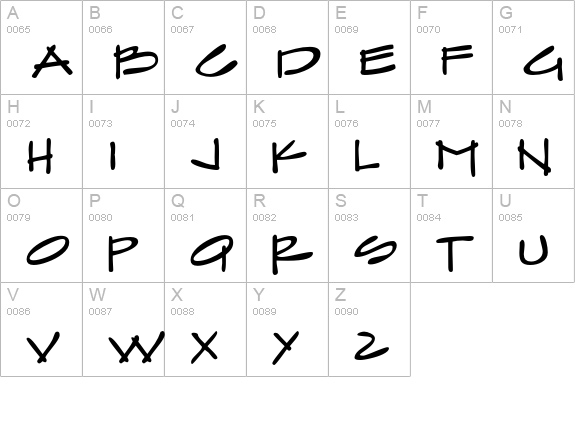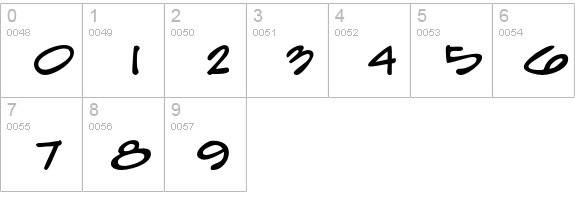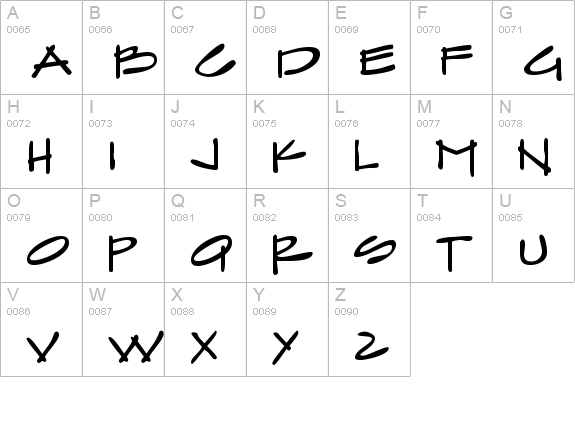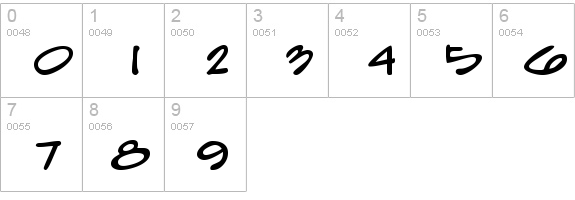
Scribble2 Font Details
Scribble2 is a public domain/gpl/ofl font in the Script > Handwritten category, designed by Mattiac. It has been downloaded 40 times and is available for Windows, Mac and Linux.
Scribble2 font is a whimsical and playful typeface that exudes creativity and charm. Its hand-drawn style gives off a unique and artistic vibe, making it perfect for projects that require a touch of originality. The irregular lines and quirky angles of Scribble2 font add a fun and dynamic element to any design. Whether you are working on a poster, invitation, or branding project, this font will surely make your text stand out.